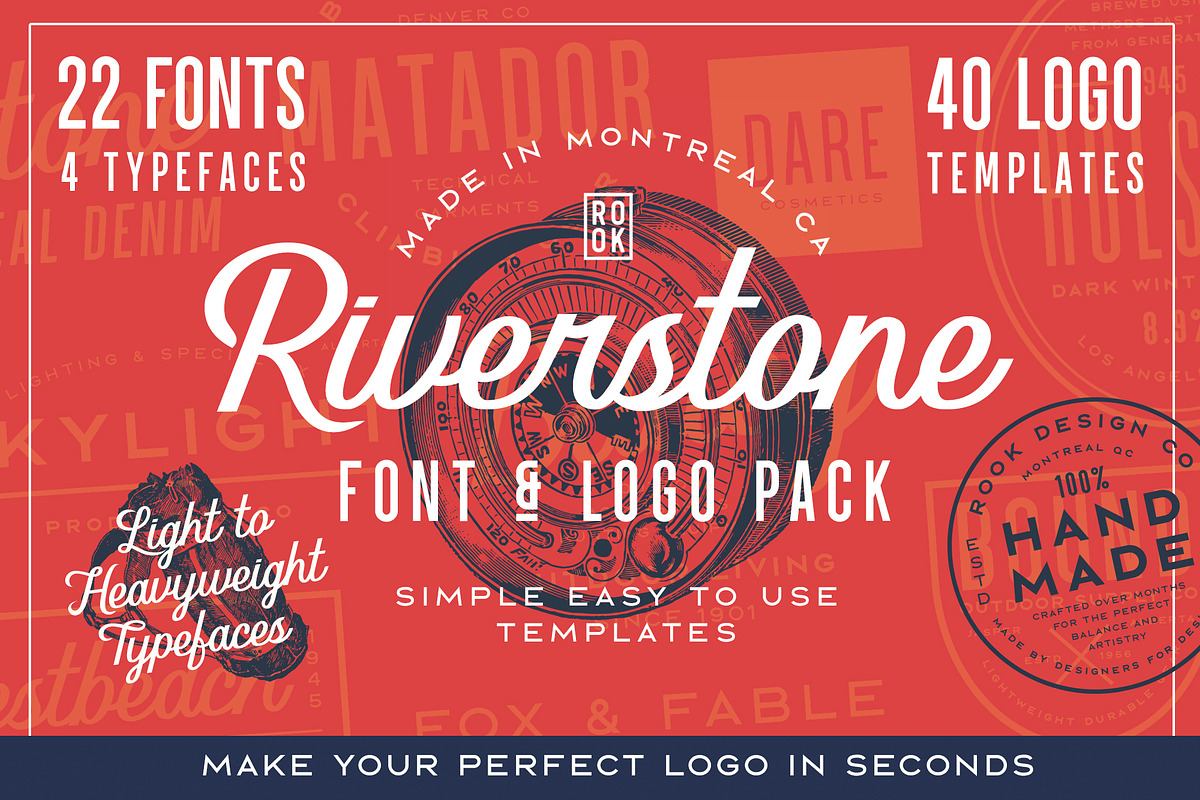
You must purchase this font for commercial use. However, you can download Riverstone Font & Logo Template Pack Free Download for testing purposes. Riverstone is a beautifully crafted font paired with a versatile logo template pack designed for creative professionals. Perfect for branding, logo design, and marketing, this font and template combination makes it easy to create stunning, professional logos with a clean, modern style.
The font features elegant letterforms with smooth curves and balanced proportions, while the included logo templates provide pre-designed layouts that can be easily customized to suit your project’s needs. Whether you’re working on a business identity, product packaging, or personal brand, Riverstone Font & Logo Template Pack Free Download offers everything you need to create impactful, memorable designs.